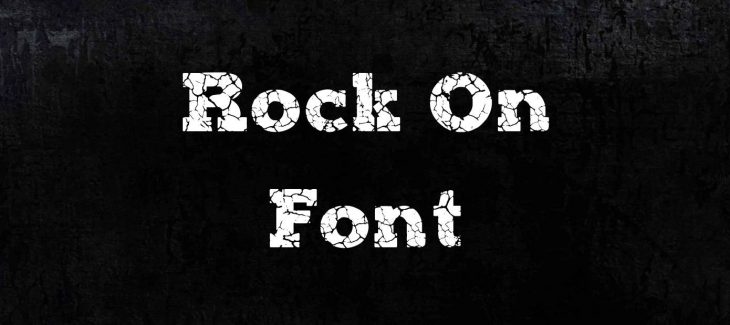
Rock on Font is a typeface that was designed in 2013 by Ian Jay. The design is based on the rock music genre and features unique details such as guitars, skulls, and flames. The typeface is perfect for creating punk rock or metal band logos, album covers, and t-shirt designs.
This Font was created with inspiration from classic rock and metal bands such as AC/DC, Metallica, and Guns N’ Roses. The typeface includes three different styles: light, regular, and bold. Each style has its own unique set of details and variations.
For example, the light style is perfect for creating delicate or subtle designs, while the regular style is ideal for more bold and impactful designs. The bold style is perfect for making statements or for creating designs that need to be noticed.
If you’re a rock music fan or looking for a typeface that will make your designs stand out, then Rock on Font is the perfect choice for you.
Who Used Rock on Font?
Rock on typeface can be used for creating punk rock or metal band logos, album covers, and t-shirt designs. The glyphs of this font can also be used to create rock-themed illustrations and posters.
Rock on Font Family Appearance
| Designer | Ian Jay |
| Style | Display |
Is Rock on a good typeface?
This Font is a great typeface with an impressive design. The overall quality is good and it’s perfect for creating punk rock or metal band logos, album covers, and t-shirt designs.